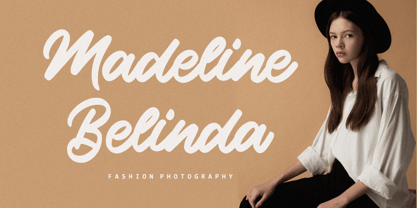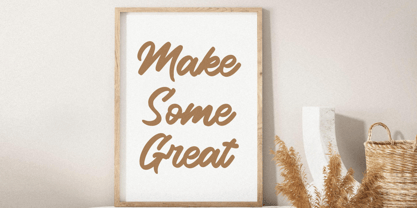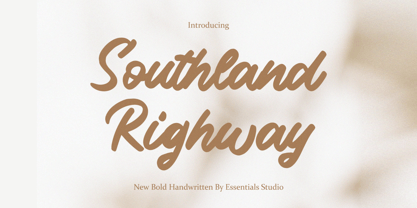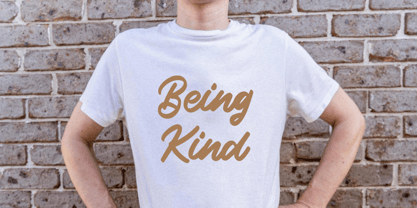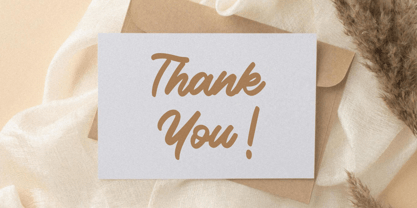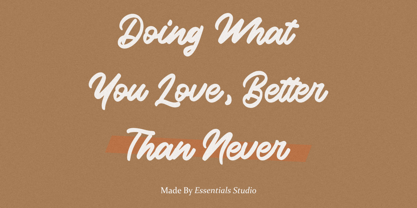
Southland Righway
by Essentials Studio
The Southland Righway Font Family was designed by Sulthan Mada Maulana Tsani and published by Essentials Studio. Southland Righway contains 1 styles. More about this family
Southland Righway is a beautiful and Bold Script handwritten font with a unique feel and a stunning impact. It will add a luxury spark to any design project that you wish to create!
Designers: Sulthan Mada Maulana Tsani
Foundry: Essentials Studio